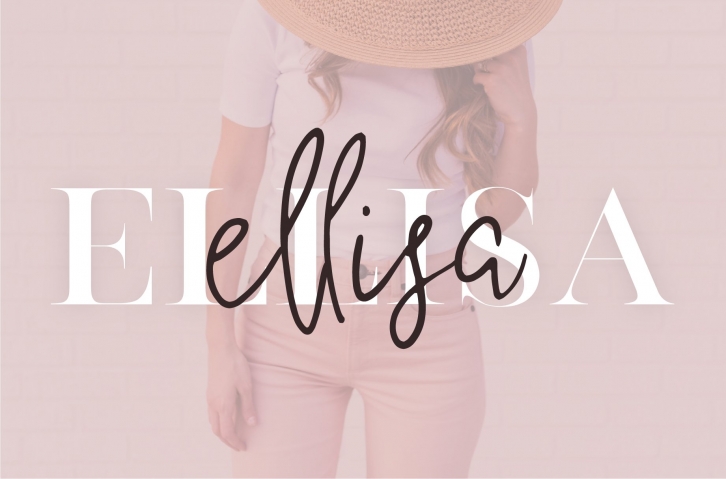
Introducing the Ellisa Handwritten and Serif Duo, a modern and classy font duo. This font duo includes a handwritten script paired with a classy and clean all caps serif. Put these together for the perfect font pairing to use for logos, brands or headings.
1. Ellisa Handwritten Regular - An feminine and edgy handwritten script that contains upper and lowercase characters, number 0-9 and a range of punctuation and symbols. If you have any trouble finding certain characters you can access them via the glyphs panel.
2. Ellisa Handwritten Alternative - This is a set of alternative characters to the lowercase Ellisa Handwritten Regular. You can use this font by itself, or use it to replace some characters when using the Regular style, especially when using the same letters frequently. This helps to break up the words, change the shape of the words and make the font look more handwritten.
3. Ellisa Serif - This is an all caps modern and classy serif that will works beautifully with the handwritten fonts. This font contains upper and lowercase characters, number 0-9 and a range of punctuation and symbols. If you have any trouble finding certain characters you can access them via the glyphs panel.
All fonts come with an all caps alphabet, numbers 0-9 and have a range of alternative characters. If you have any trouble finding certain characters you can access them via the glyphs panel.